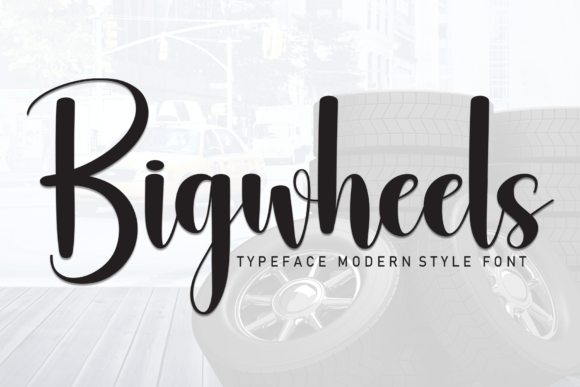
The Bigwheels Font: A Sweet and Friendly Handwritten Delight
I’ll never forget the time I was working on a wedding invitation project, and I just couldn’t find the perfect font to capture the sweet and playful vibe of the couple’s special day. I scoured the internet, tried out dozens of fonts, but nothing seemed quite right. That was until I stumbled upon Bigwheels Font – a beautiful, handwritten script that instantly won me over with its charm and personality.
A Personal Review of Bigwheels Font
So, what makes Bigwheels Font so special? Let’s dive into the good stuff! 😊
- ✨ Sweet and friendly vibe: Bigwheels Font has a warm, inviting feel that’s perfect for creating designs that feel personal and approachable.
- ✅ Cute and fun: This font is ideal for projects that require a playful touch, like wedding invitations, birthday cards, or kids’ party decorations.
- 💕 Highly legible: Despite its handwritten nature, Bigwheels Font is surprisingly easy to read, even at smaller sizes.
- 🎨 Versatile: This font works beautifully in a variety of design contexts, from digital graphics to print materials.
While Bigwheels Font is an excellent choice for many projects, there are a few things to keep in mind:
- 🤔 Limited formal applications: Due to its playful nature, Bigwheels Font might not be the best fit for more formal designs, like business reports or academic papers.
- ⚠️ Requires attention to spacing: As with any script font, it’s essential to pay attention to letter spacing to ensure the text reads smoothly.
The Backstory Behind Bigwheels Font
Bigwheels Font was designed with love and care by a talented type designer who wanted to create a font that would bring a smile to people’s faces. Inspired by the whimsical world of childhood, Bigwheels Font is a reflection of the joy and playfulness that comes with creating something beautiful.
Q: What makes Bigwheels Font so special?
A: Bigwheels Font is a unique blend of sweetness and playfulness, making it perfect for designs that require a personal touch.
Q: Is Bigwheels Font suitable for body text?
A: While Bigwheels Font is highly legible, it’s best suited for headlines, titles, or short paragraphs of text.